Is it possible to get a path from a font like this?
So I feel like I've done this before and I can't remember how. But is it possible to get an inside path from a font? I know how to outline a font but is there any way to get a path as if the font ittself is only one path?
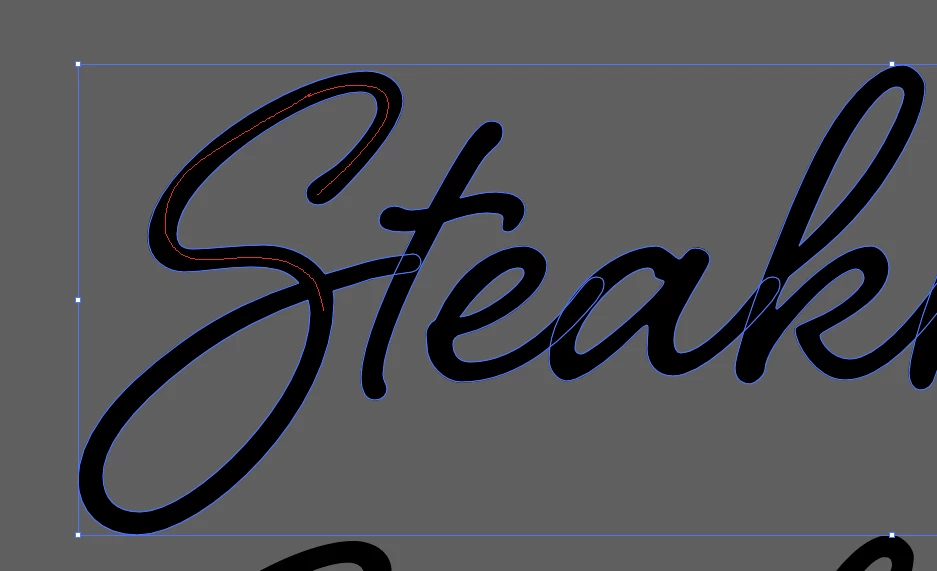
It's not a really easy process, but I'll often use object blends to create center line paths and effects on letters. The process involves breaking apart portions of the letters and then creating single step blends down the middle of the two facing path segments. Usually one of the path segments needs to have its direction reversed to made the new path fall properly fall down the middle of the letter stroke.
Typefaces that have more hand-drawn or brushed appearances don't require exact results. The blend process wouldn't really be necessary; it would be good enough to just hand-draw a new centerline path.
The long answer is no.
There are 2 approaches, but with. both, you would need to adjust afterwards in a way that you are probably faster when you just draw it.